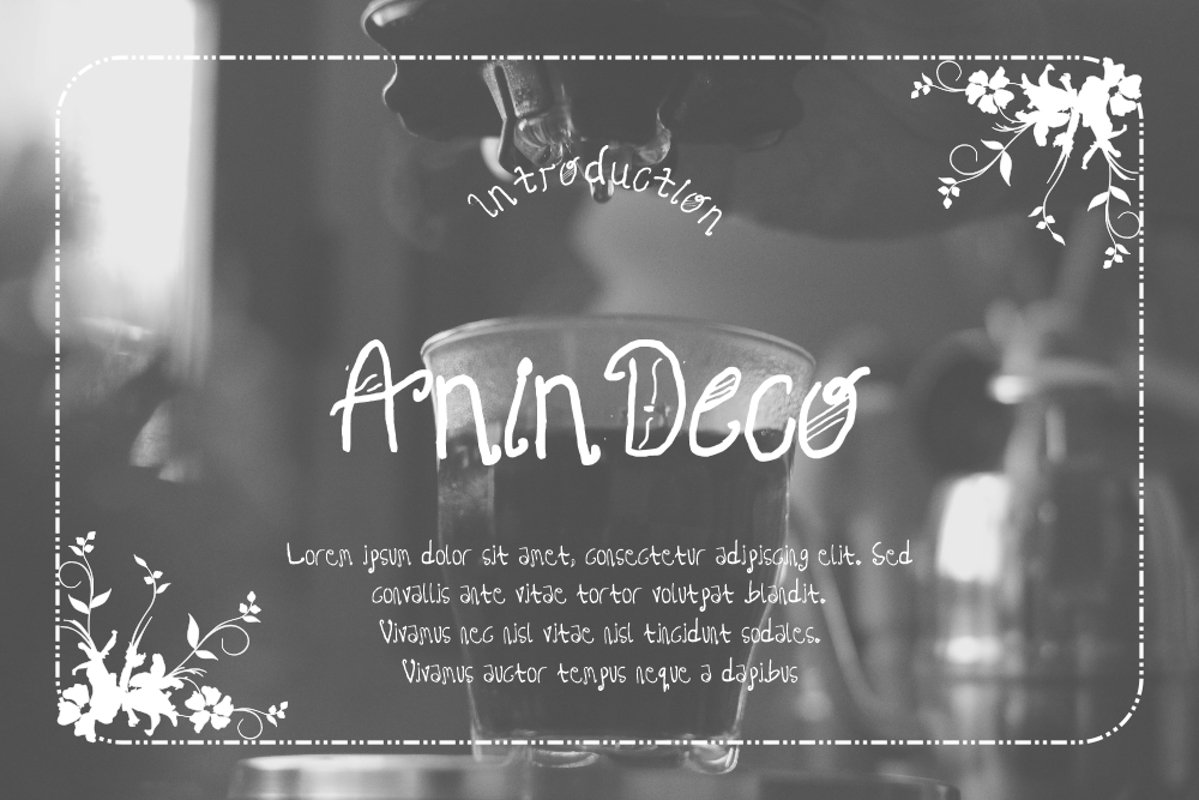
Anin Deco
Anin Deco Typeface is a Display type. It suitable for any vintage type needs and more Happy creating.Very suitable for you who do exploration